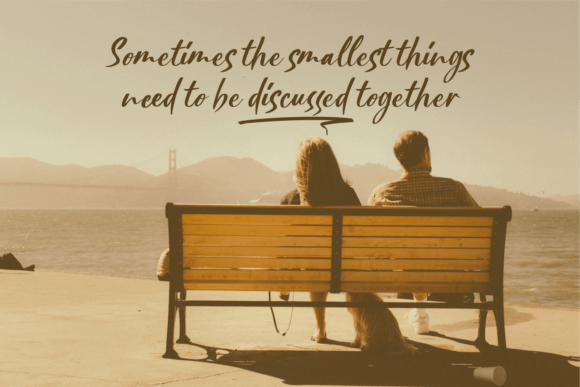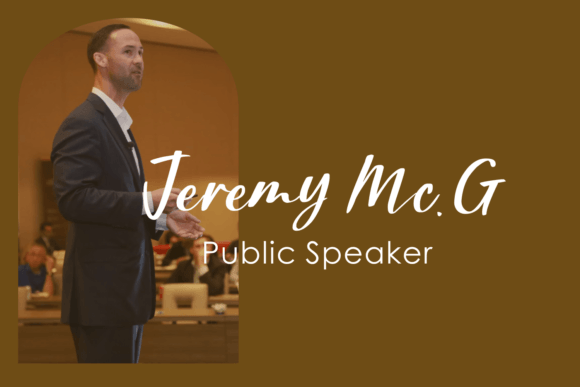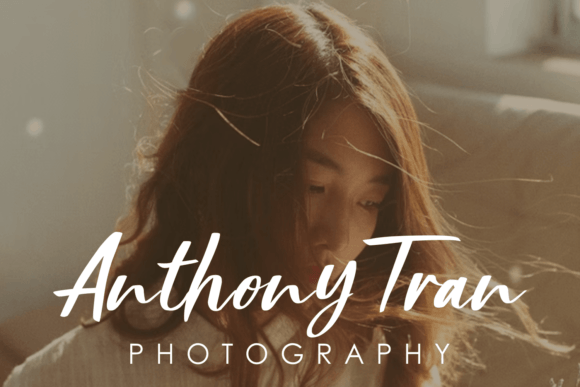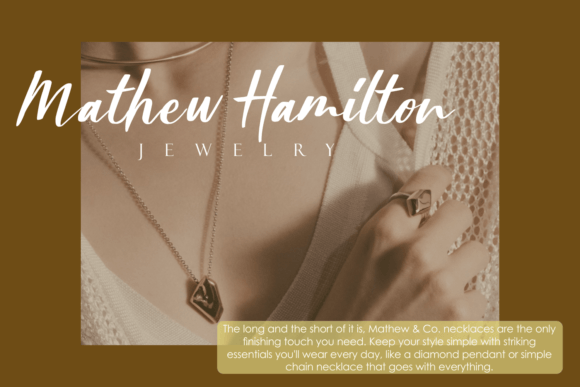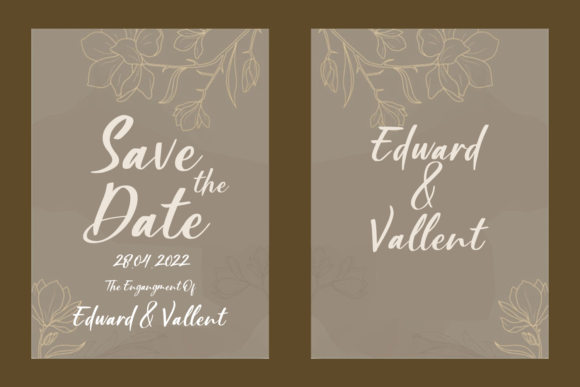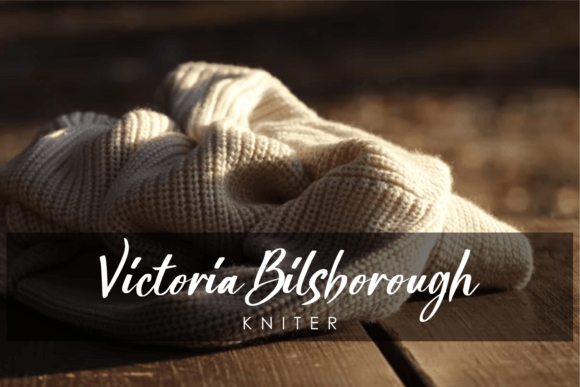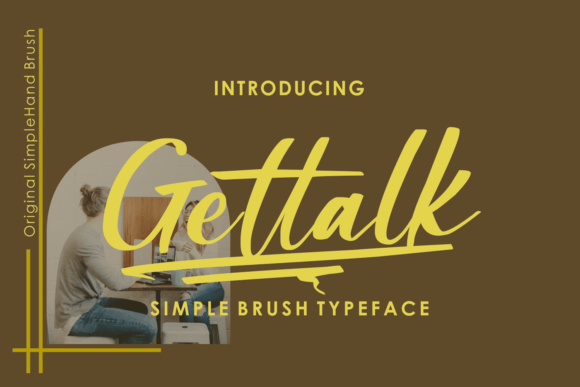
Introducing Gettalk Font: A Simple yet Unique Brush Font for Your Design Needs
In the world of typography, a good font can make all the difference in the success of a design project. Whether you’re a professional designer or a crafty DIY enthusiast, finding the right font can be a daunting task. That’s why we’re excited to introduce Gettalk Font, a simple yet unique brush font that’s perfect for a variety of design purposes.
What is Gettalk Font?
Gettalk Font is a beautifully crafted brush font that’s designed to be both simple and unique. With its standard ligatures and various lines, this font offers a range of creative possibilities for designers and crafters alike. Whether you’re looking to create eye-catching headlines, stylish social media graphics, or elegant invitations, Gettalk Font is the perfect choice.
Key Features of Gettalk Font
- Simple yet unique design: Gettalk Font boasts a simple yet distinctive design that’s sure to grab attention.
- Standard ligatures: This font features standard ligatures, which allow for a more natural and fluid writing style.
- Various lines: Gettalk Font comes with a range of lines that can be used to add texture and interest to your designs.
- Perfect for pairing: Gettalk Font is designed to be easy to pair with other fonts, making it a versatile addition to your font library.
Use Cases for Gettalk Font
Gettalk Font is a versatile font that can be used for a wide range of design projects. Here are just a few ideas to get you started:
- Headlines: Use Gettalk Font to create bold and eye-catching headlines that grab attention.
- Social media graphics: This font is perfect for creating stylish social media graphics that stand out from the crowd.
- Invitations: Gettalk Font is ideal for creating elegant and sophisticated invitations for weddings, parties, and other special occasions.
- Business cards: Use this font to create professional and stylish business cards that make a lasting impression.
- Photography: Gettalk Font can be used to add text and captions to your photos, adding a touch of elegance and sophistication.
- Quotes: This font is perfect for creating inspirational and motivational quotes that can be shared on social media or used in design projects.
Why Choose Gettalk Font?
So why should you choose Gettalk Font for your design projects? Here are just a few reasons:
- High-quality design: This font is designed to high standards, ensuring that your designs look professional and polished.
- Versatile: Gettalk Font can be used for a wide range of design projects, making it a great addition to your font library.
- Unique style: This font has a unique and distinctive style that’s sure to grab attention.
In conclusion, Gettalk Font is a simple yet unique brush font that’s perfect for a variety of design purposes. With its standard ligatures, various lines, and easy-to-use design, this font is a great choice for designers and crafters alike. Whether you’re looking to create eye-catching headlines, stylish social media graphics, or elegant invitations, Gettalk Font is the perfect choice. So why not give it a try and see the difference it can make in your design projects?